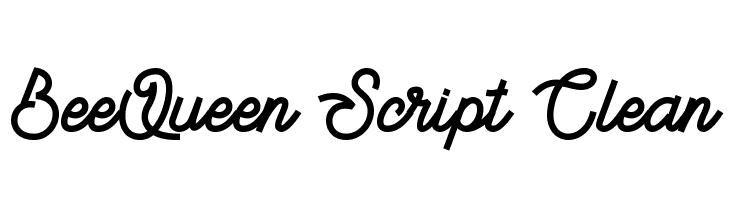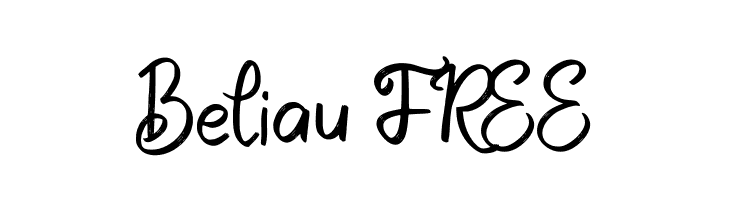
A modern, cursive font with smooth, flowing characters and consistent stroke width.
A flowing, cursive font with elegant loops and swashes.
A bold serif font with strong, angular serifs and a modern yet classic aesthetic.
A lively, fluid script font with a handwritten appearance.
A playful, handwritten font with looping, cursive-like strokes.
A bold, brush-style font with dynamic, hand-painted strokes.
A flowing, cursive font with elegant, sweeping strokes and intricate flourishes.
A bold, expressive script font with a handwritten feel and elegant flourishes.
A playful, hand-drawn style font with bold, outlined characters.
A bold, flowing script font with a modern and elegant style.
A playful, hand-drawn script font with bold, rounded characters.
A bold, Gothic blackletter font with high contrast and ornate detailing.
A playful and whimsical script font with decorative loops and swirls.
A thin, handwritten font with a casual and elegant style.
A playful, handwritten font with a fluid and casual style.
A bold, geometric font with a modern and structured appearance.
A bold, flowing script font with elegant, cursive letterforms.
An elegant, cursive font with flowing, intricate strokes.
A flowing, cursive script font with a handwritten style.
A decorative and artistic script font with intricate loops and swirls.
An elegant, high-contrast font with modern and classic elements.
A cursive, handwritten-style font with elegant, flowing lines.
A flowing, cursive handwritten font with elegant loops and dynamic curves.
A playful, handwritten script font with dynamic curves and bold strokes.
A flowing, cursive script font with elegant, interconnected characters.
An elegant, cursive font with flowing, interconnected letters and dynamic contrast.
A dynamic, hand-drawn brush font with an energetic and artistic style.
A playful, handwritten font with tall, narrow letters and a casual style.
A playful, casual handwritten font with smooth, flowing letterforms.
A bold, dynamic handwritten font with fluid strokes and a casual elegance.
A casual, handwritten font with tall, slender characters and a playful vibe.